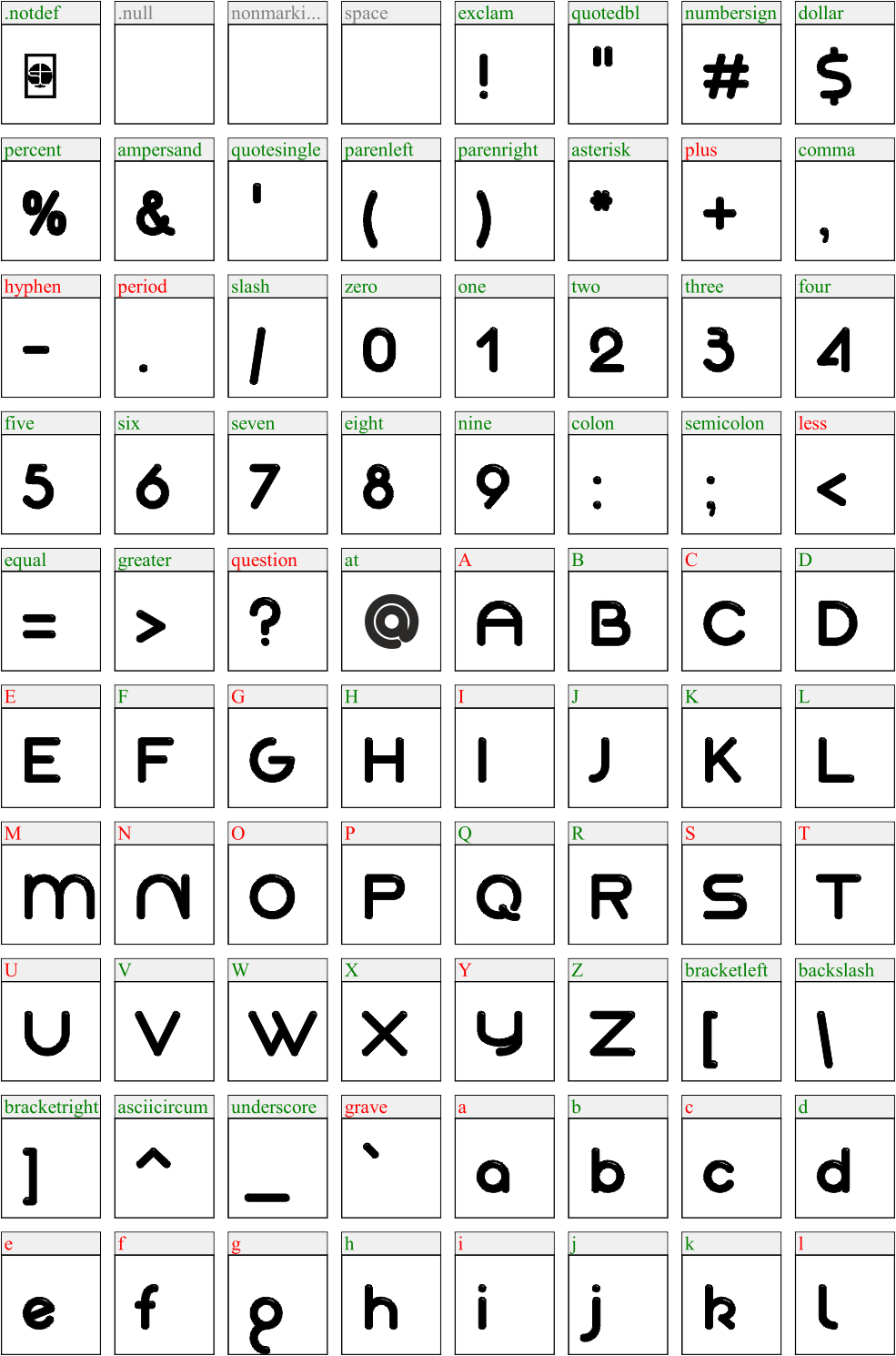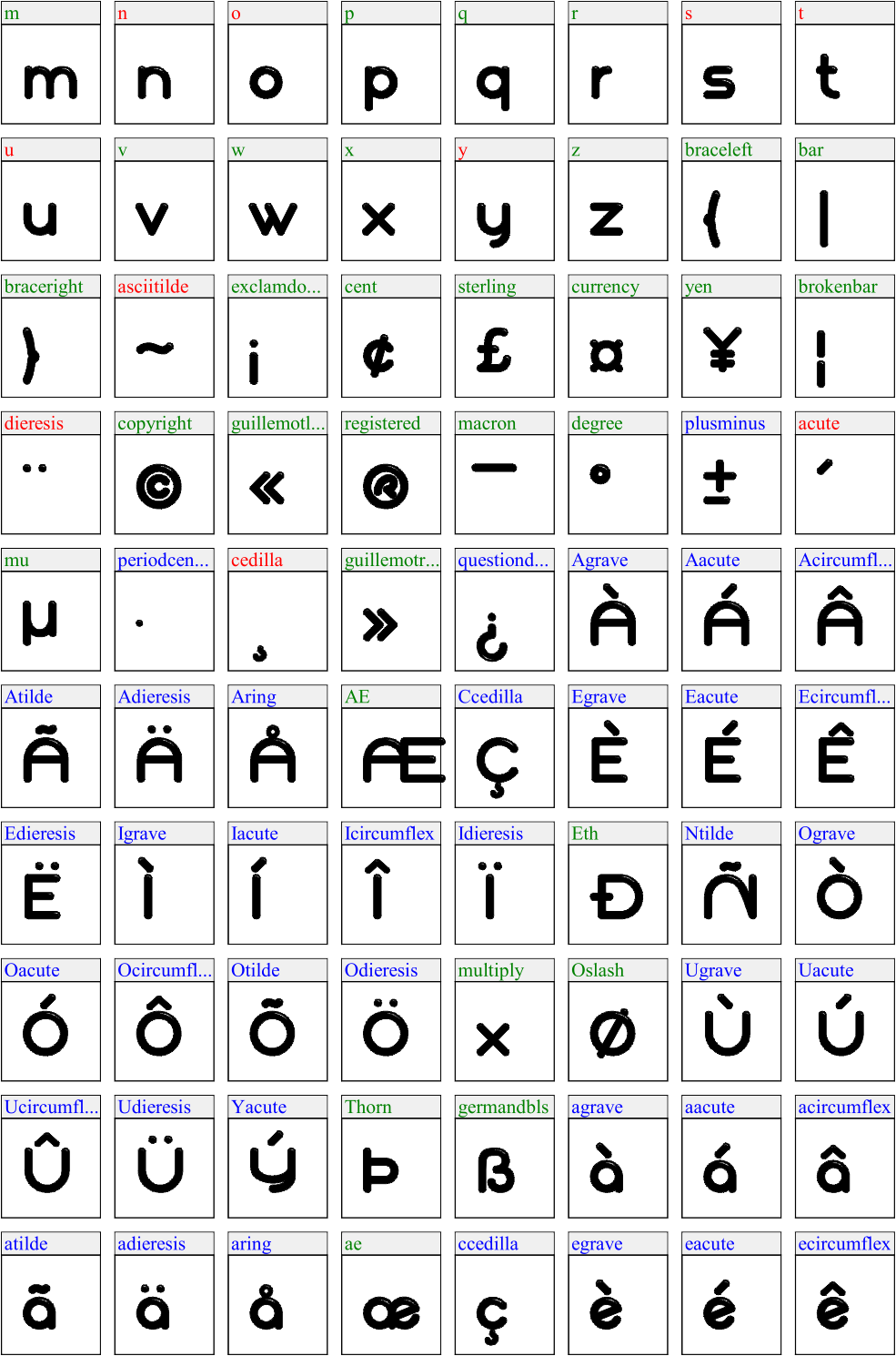
• AKAJU Font
Akaju Font Family - Shiny, Bold, and Full of Character
Akaju, designed by Mehmet Abacı and distributed through StudioTypo, is a spirited display typeface family that brings a playful and decorative touch to any creative project. With a rounded and futuristic design, it balances charm and impact in a visually rich package.
Available Styles:
Light - A sleek and minimalist version, clean and airy.
Regular - Bold and polished, ideal for display use.
Shine - Glossy with subtle highlights, giving a metallic or bubble‑gum sheen.
Outline - Hollow letterforms outlined with the same graphical style, perfect for layered compositions.
Each style retains the same strong, circular geometry and modern sensibility while offering different visual effects. Whether you need crisp minimalism, bold presence, glossy flair, or outlined versatility, Akaju delivers it all in one cohesive family.
- Decorative display with energy - Perfect for posters, logos, packaging, and playful branding.
- Multilingual friendly - Full support for Basic Latin, Western European diacritics, Central European, Baltic, and Turkish languages.
- Flexible use cases - Works beautifully in editorial design, packaging, game art, and UI elements.